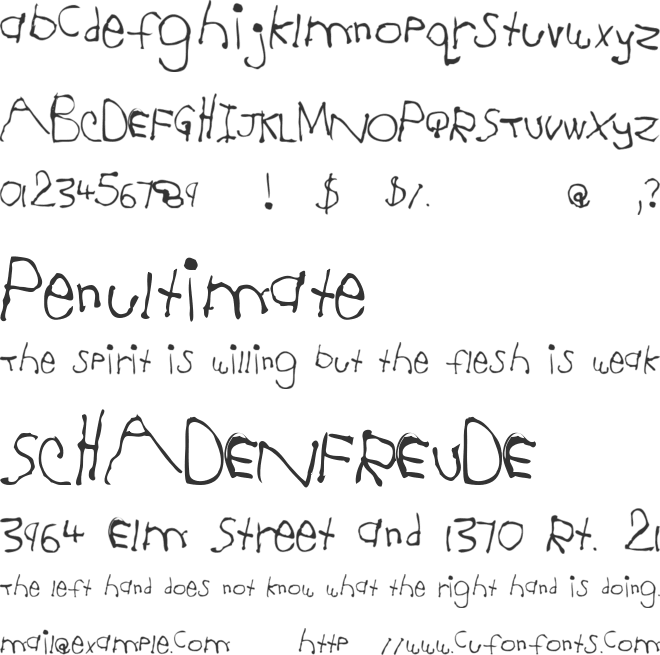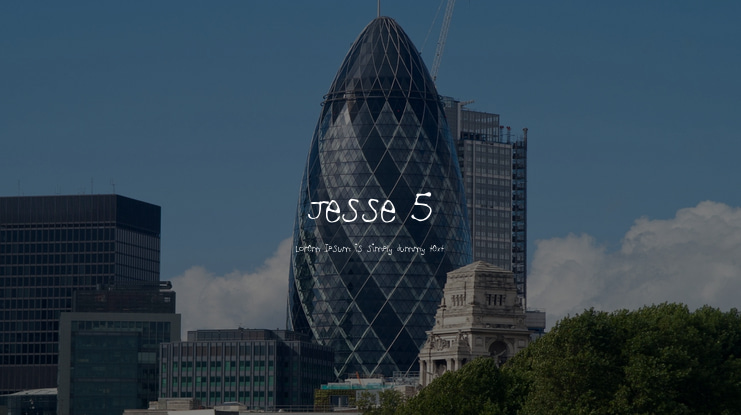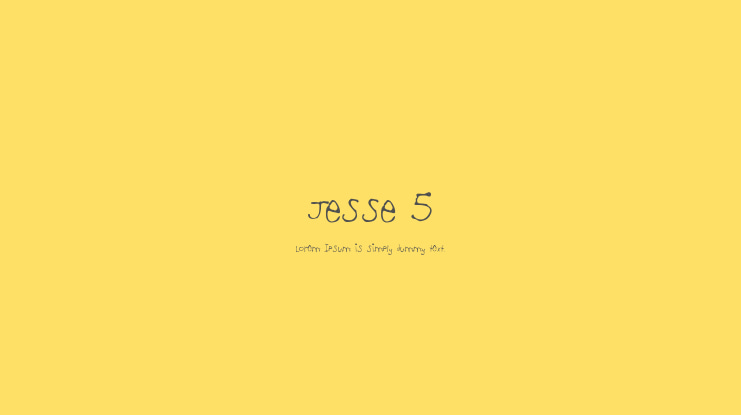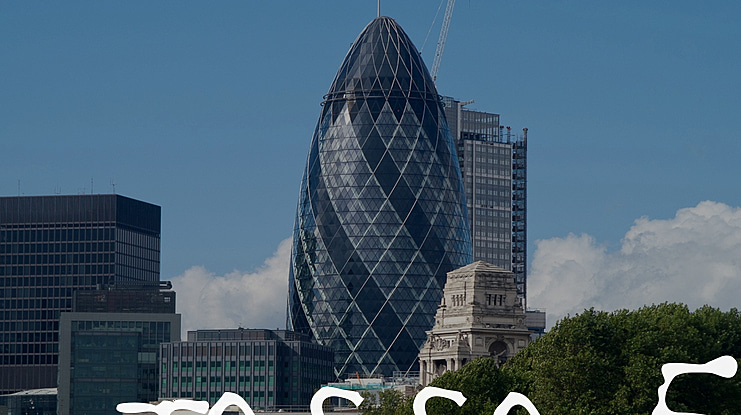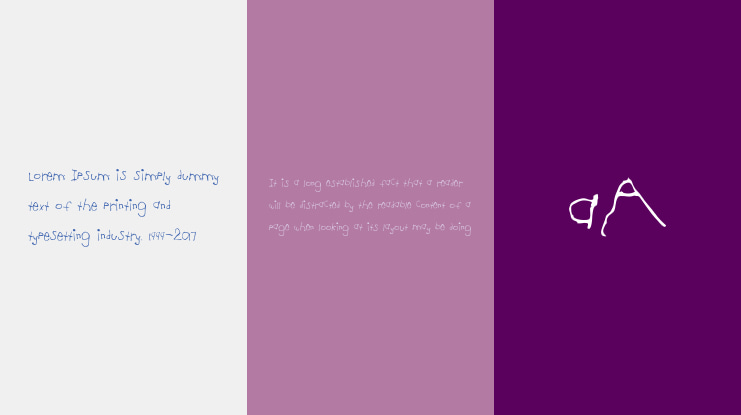
Jesse 5 Font
A childrens handwritten font, handmade by Justin Mervyn Biddle at eStudio. Includes numbers and punctuation.
Original characters handwritten by my 5 year old Jesse.